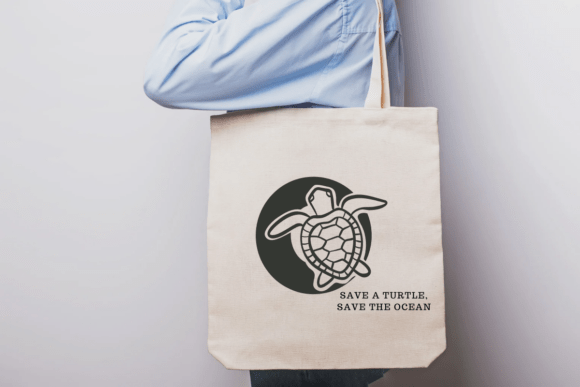
Turtle Summer Font
Turtle Summer Font is a fun and refreshing decorative typeface featuring adorable sea turtle illustrations swimming playfully through each letter. Designed with a summery, coastal vibe, this font is perfect for beach-themed projects, ocean conservation campaigns, kids’ summer crafts, or seaside boutique branding. Its charming blend of solid geometric shapes and hand-drawn turtle art creates a unique, friendly, and nature-inspired look.